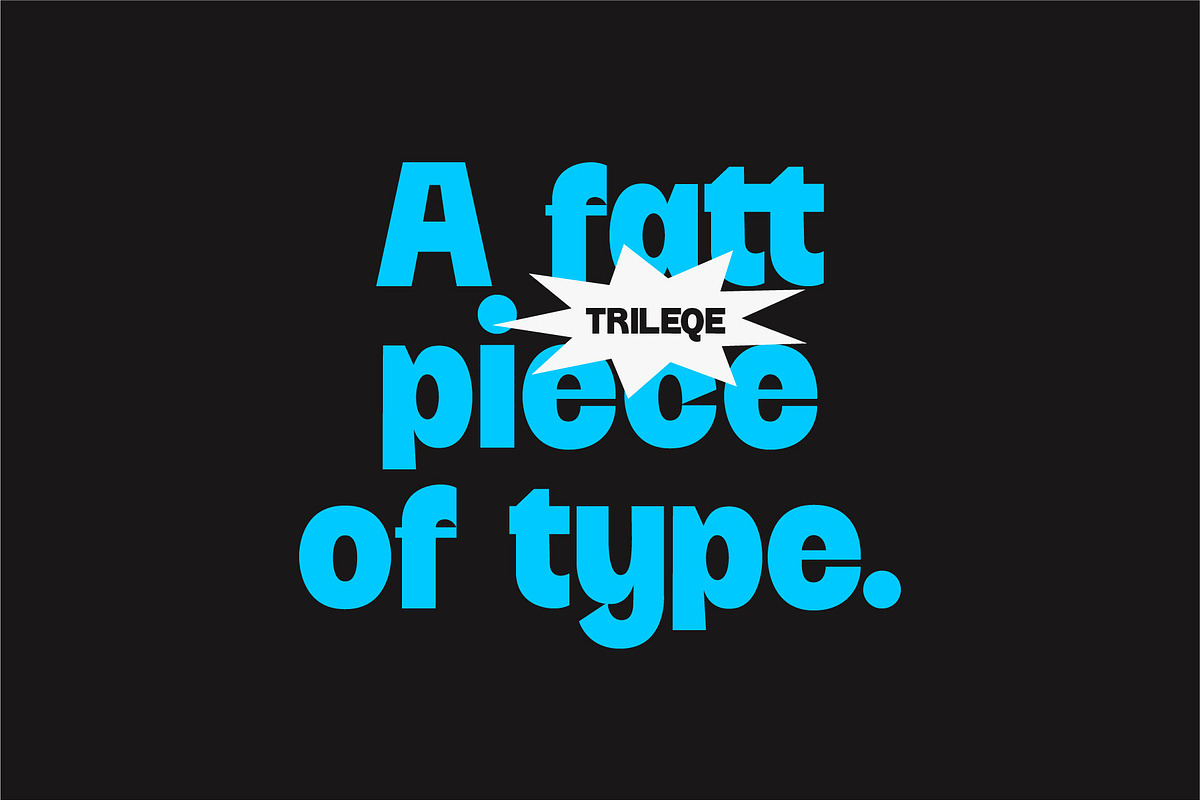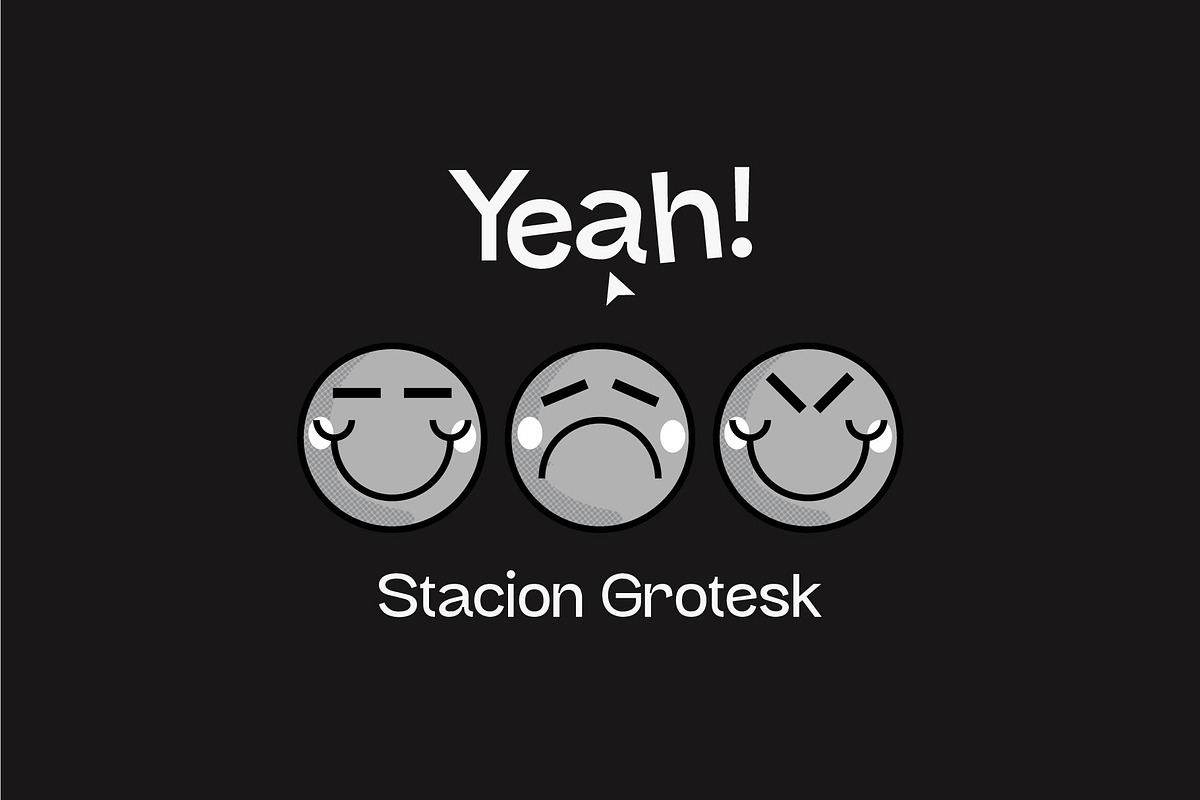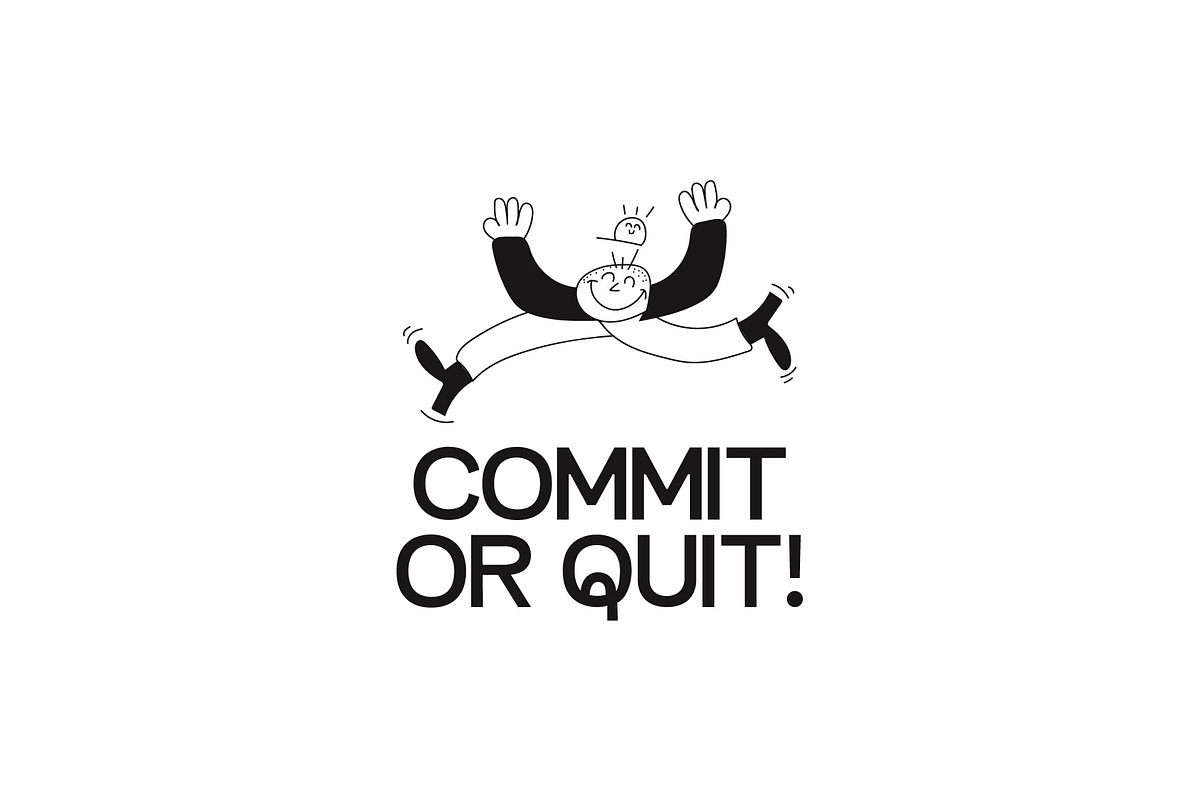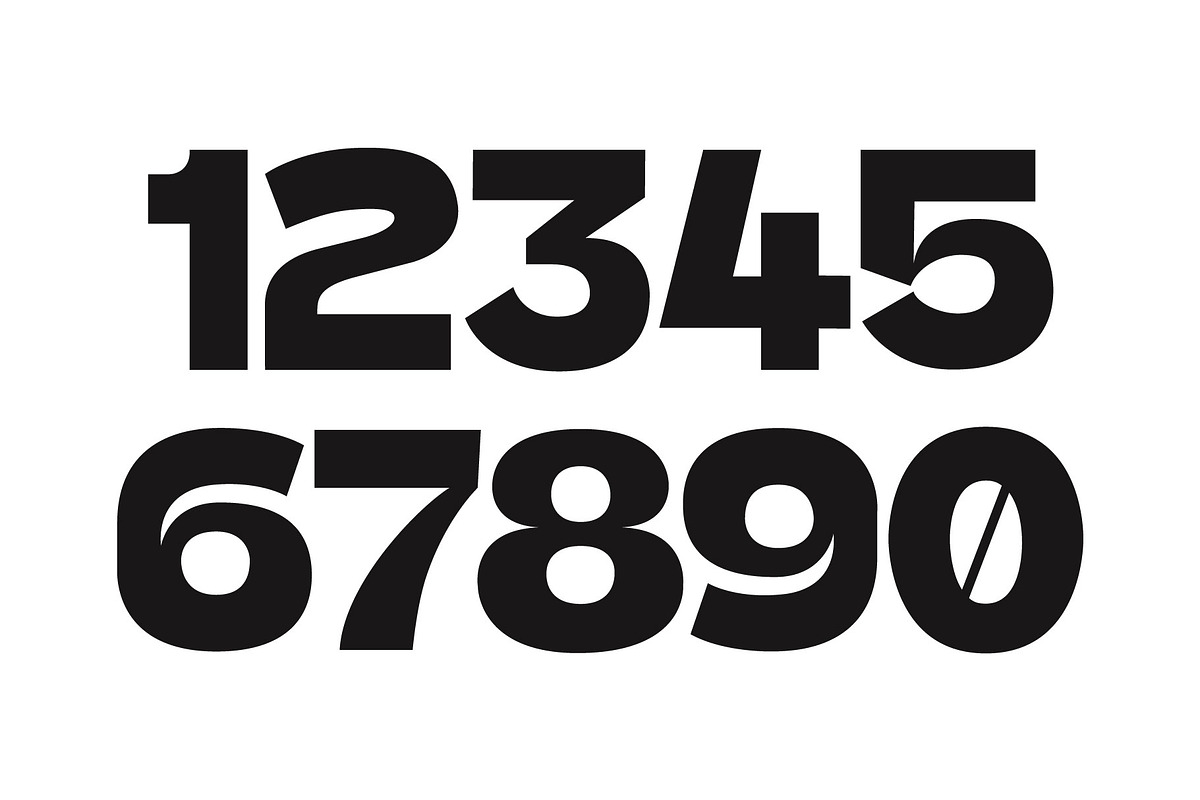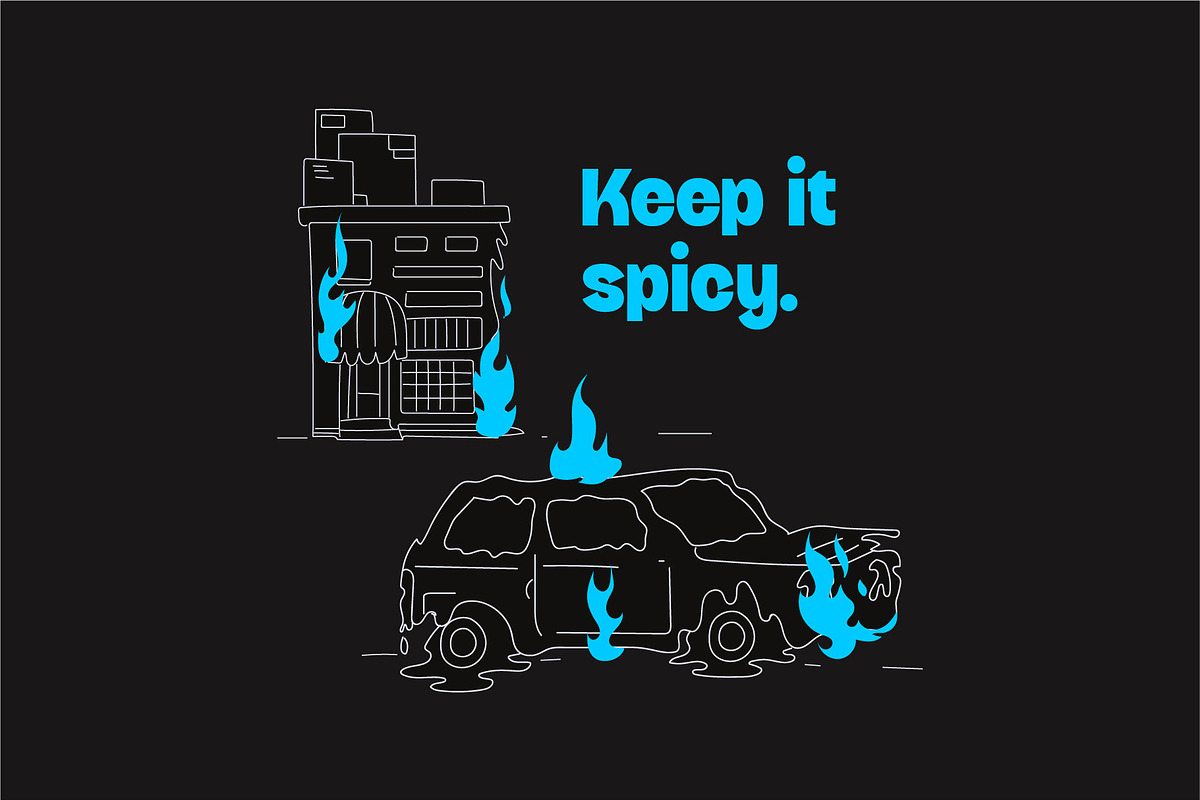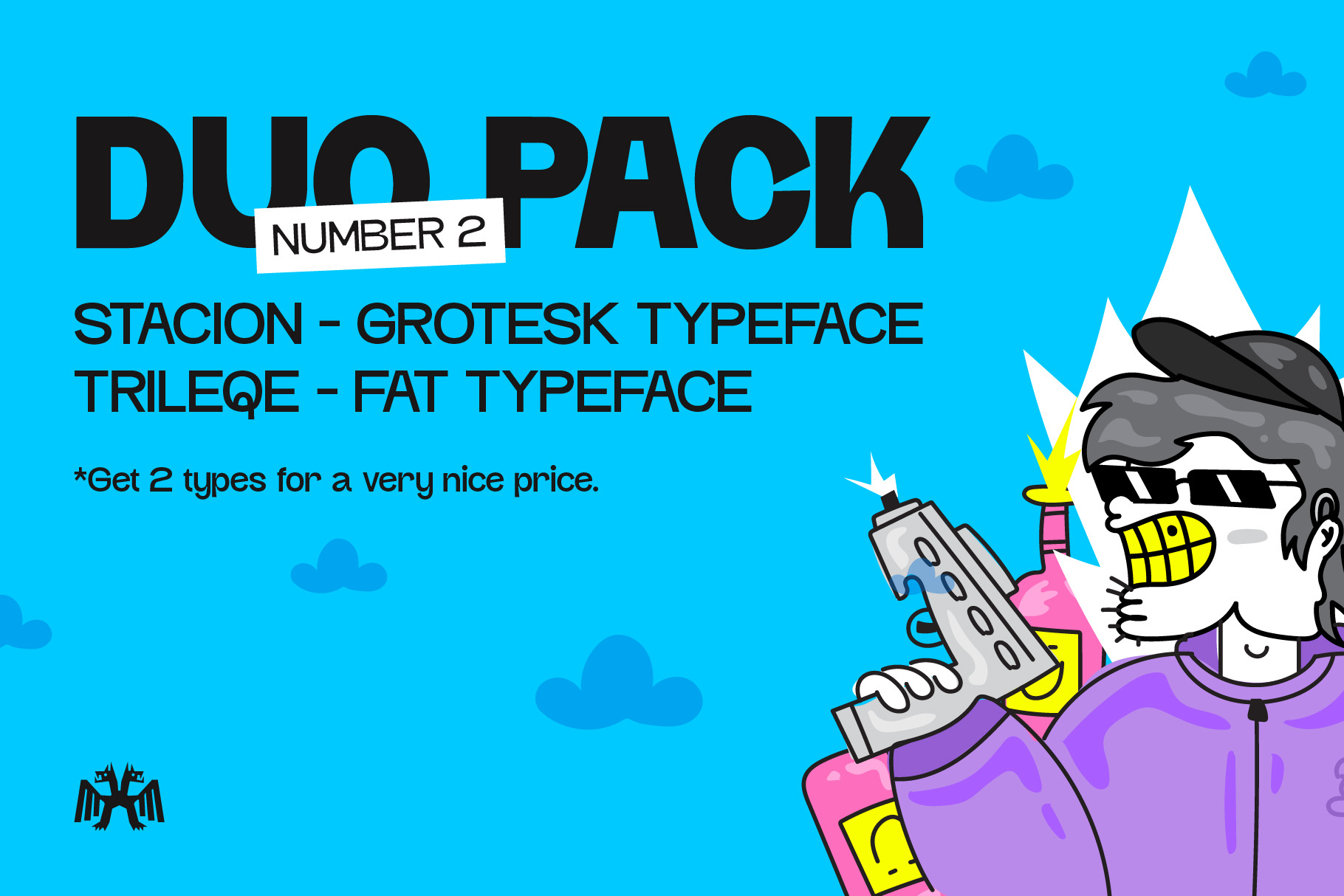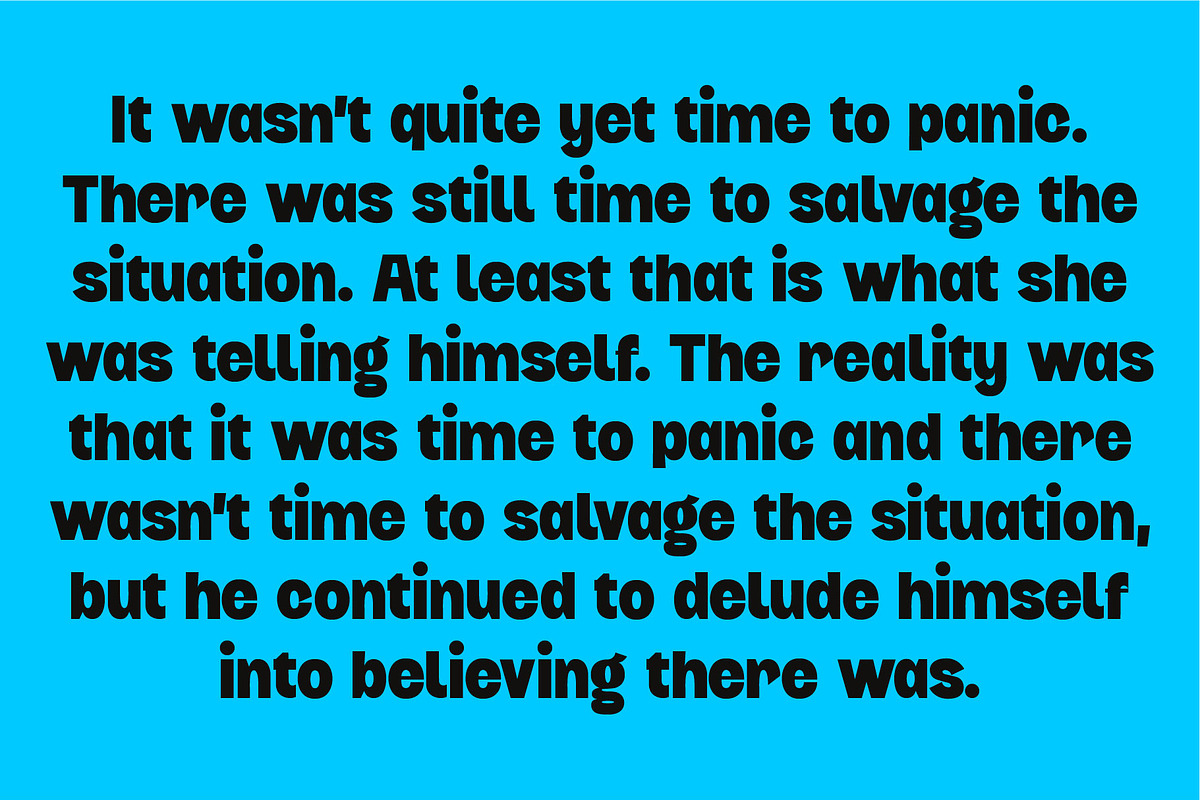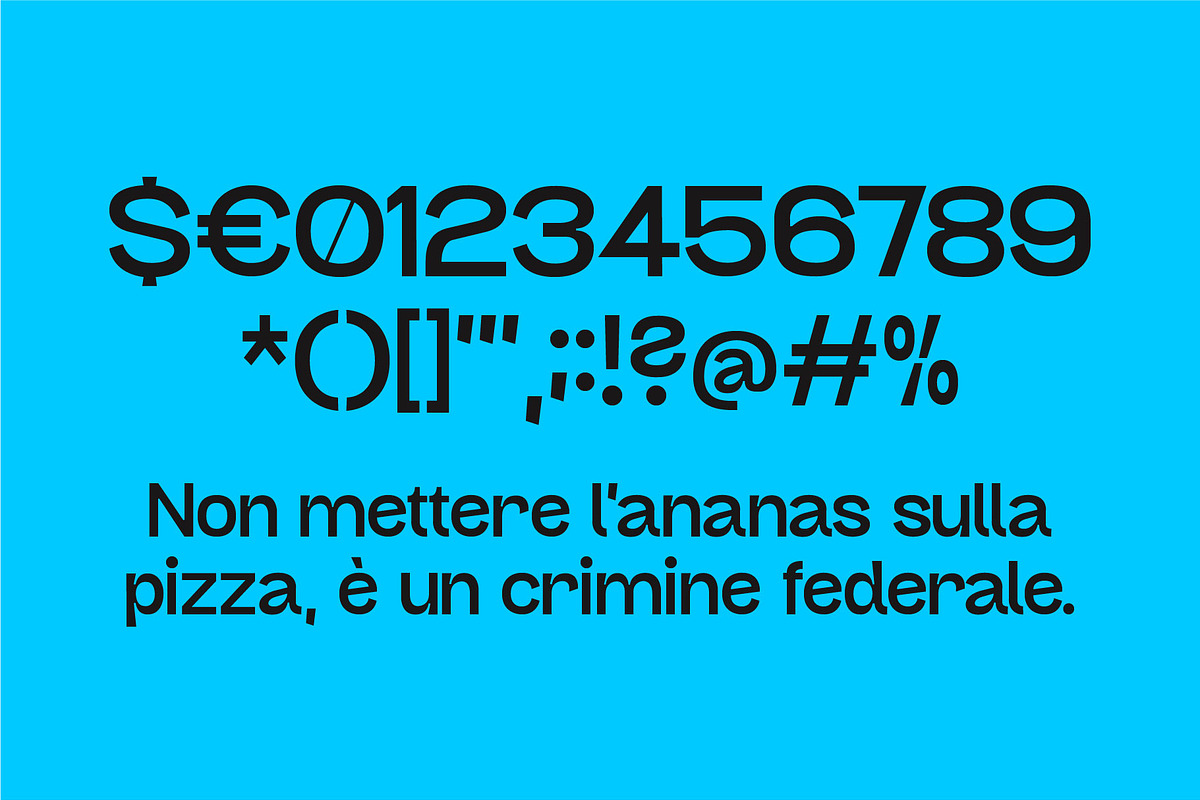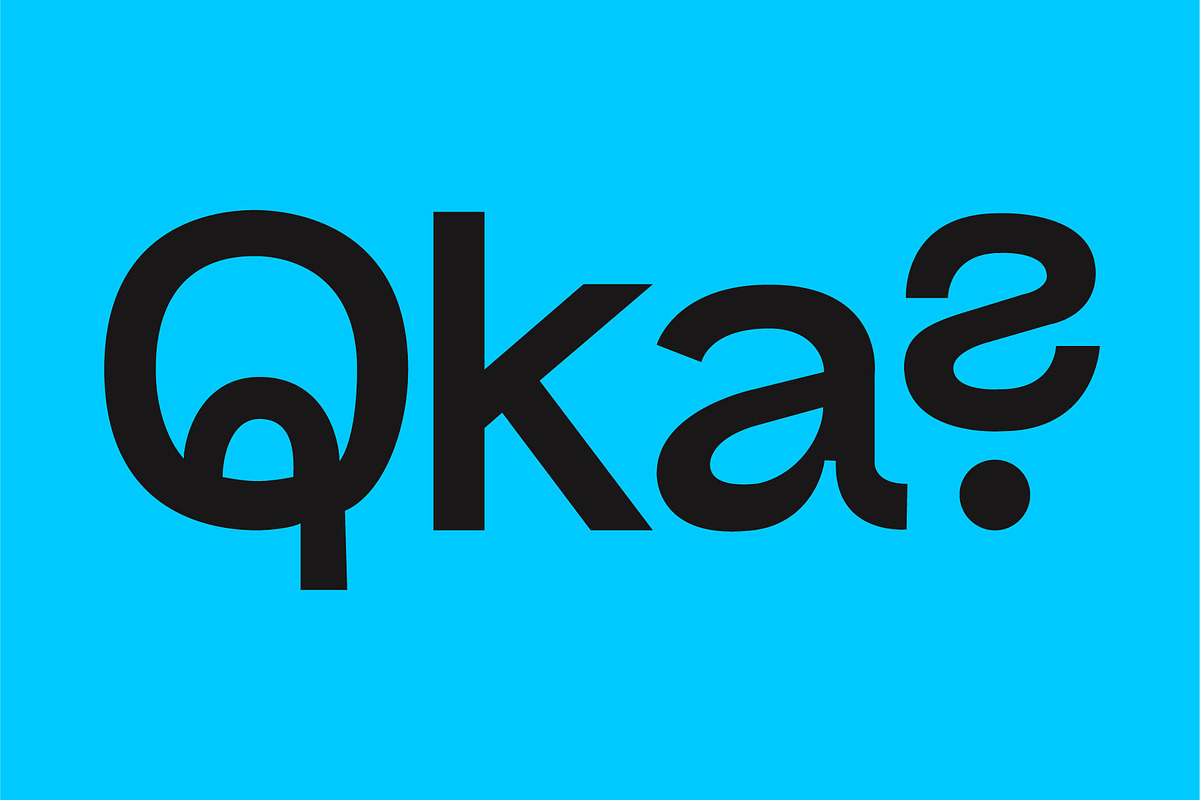
Trileqe + Stacion (Duo Font Pack)
We're expanding the Duo Packs! 2 random types mixed together and made into a small bundle. Get the pack with a nice price. This product is perfect for those who want 2 funky types instead of 1 and want to save a couple bucks while at it.
In the pack: Stacion Grotesk (Light, Regular & Italics) + Trileqe Display (Fatt, Hybrid & Italics).